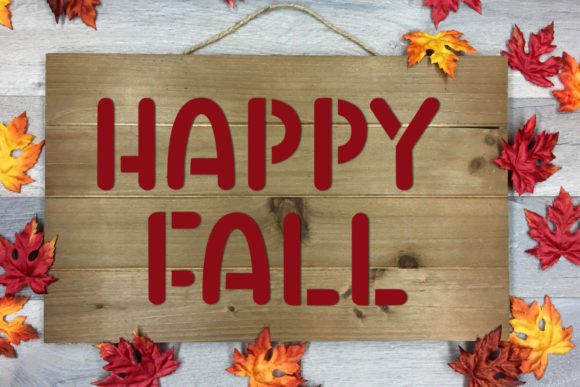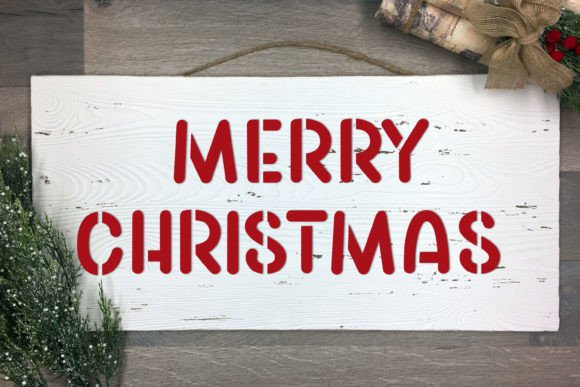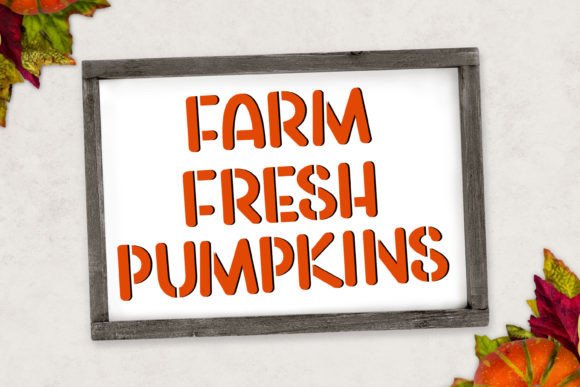
Introduction to Cozy Caps 2 Font
Cozy Caps 2 Stencil font is a bolder version of my popular Cozy Caps font with all open counters (no closed shapes).
It is a handwritten, print font made up of capital letters A-Z, numbers 0-9, punctuation, and some accented characters Cozy Caps 2 is perfect for stenciling wood signs, doormats, reverse canvases, and many other stencil projects.
Key Features of Cozy Caps 2 Font
Why Choose Cozy Caps 2 Font?
Cozy Caps 2 Font offers exceptional quality and versatility, making it a valuable addition to your design toolkit. Whether you’re creating for personal projects or commercial use, Cozy Caps 2 Font delivers professional results.